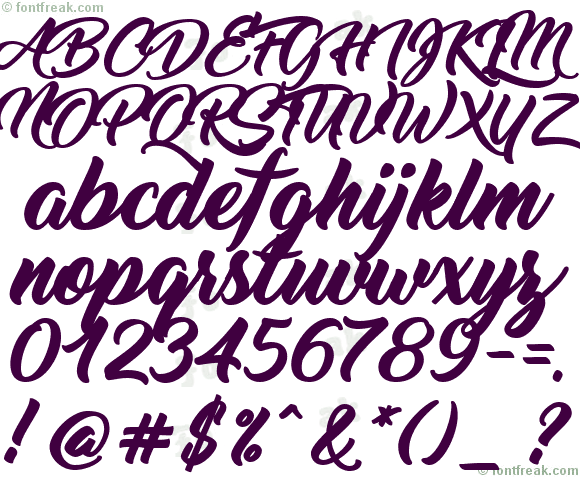
Thinking Of Betty
Thinking Of Betty, designed by Clement Nicolle, is a striking script font that exudes elegance and charm. This font falls under the category of handwritten scripts, characterized by its fluid and organic letterforms. The stroke weight is moderately varied, giving it a dynamic look that captures the essence of casual yet refined handwriting. The letters feature a beautiful contrast, with some strokes being thicker and others delicately thin, creating an engaging visual appeal. The spacing is well-balanced, ensuring readability while maintaining a stylish flow, making it suitable for various applications.
This versatile font is ideal for a range of creative projects. It shines in wedding invitations, where its romantic flair can beautifully capture the spirit of the occasion. Additionally, it works exceptionally well for cafe and restaurant menus, adding a touch of warmth and personality to the dining experience. Movie posters can also benefit from the font’s artistic qualities, lending a unique and eye-catching element to promotional materials. Content creators will find Thinking Of Betty perfect for blog headers or social media graphics, as it captures attention and encourages engagement.
Target audiences for this font include graphic designers looking to enhance their projects with a touch of sophistication, small business owners wanting to elevate their branding, and content creators seeking distinctive typography for their digital presence.
What sets the Thinking Of Betty font apart is its ability to blend elegance with a personal touch, making it a standout choice for anyone looking to convey authenticity and creativity. With its free download option, this font presents an excellent opportunity for both professionals and hobbyists to incorporate a unique script into their designs. Embrace the charm of Thinking Of Betty and elevate your projects today.